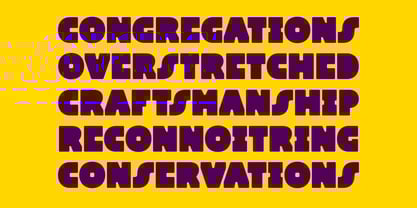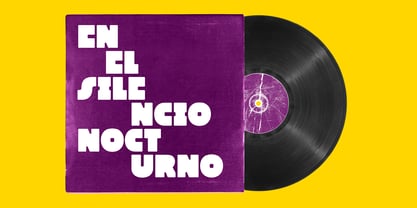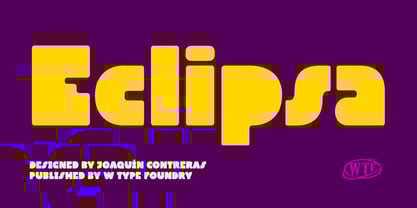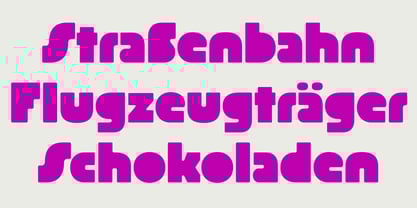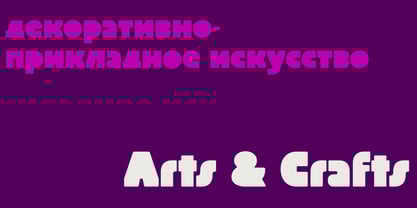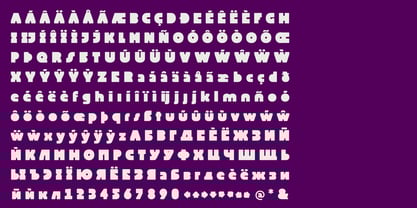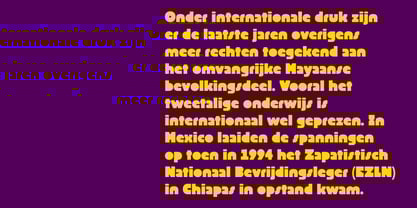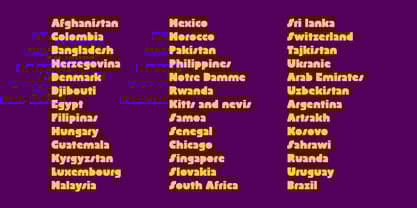
Eclipsa
by W Type Foundry
The Eclipsa Font Family was designed by Joaquín Contreras and published by W Type Foundry. Eclipsa contains 1 styles.
Eclipsa is a display typeface inspired by the lettering used in an old workers’ newspaper. The absence of internal counters in some letters and its rounded corners give it a soft, physical character. Historically, it can be associated with the formal style of the Art Deco movement, recognized for its posters and architectural design.
Eclipsa includes Latin and Cyrillic alphabets, covering 229 languages, available in 1 style with 323 glyphs.